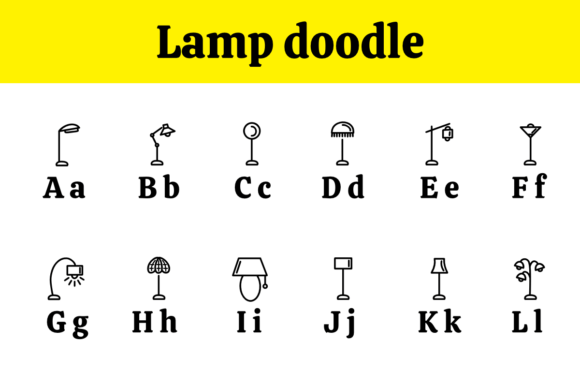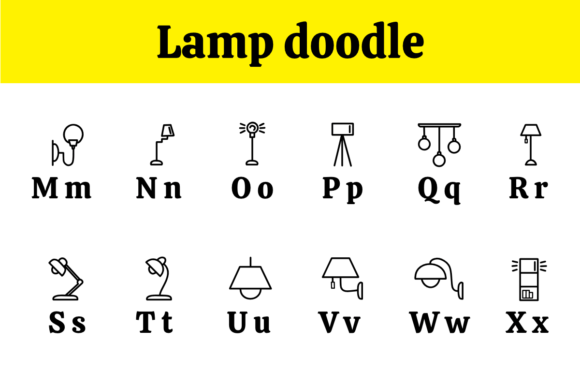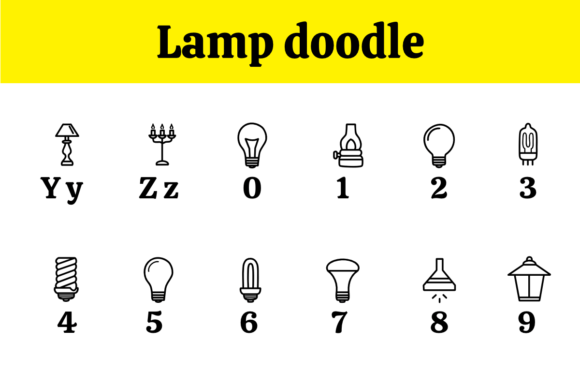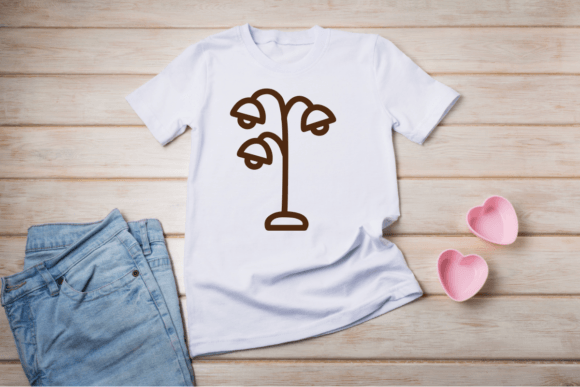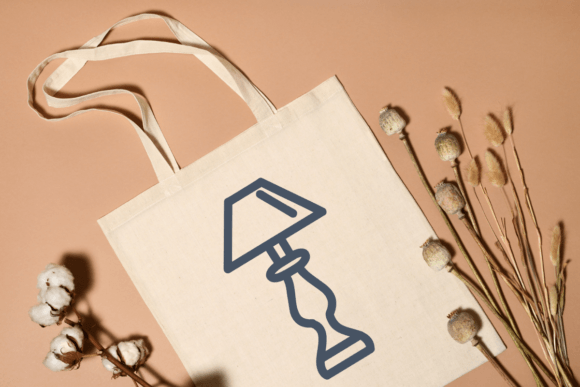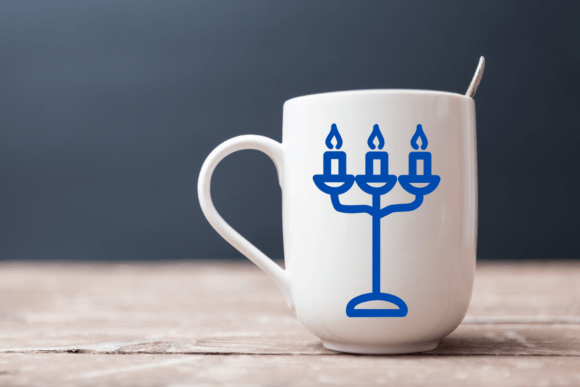
Introduction to Lamp Doodle Font Font
Fonts play a crucial role in design, and the Lamp Doodle Font font is a typeface that brings both character and versatility to any project. Whether you’re working on a branding project, a website, or a print design, the Lamp Doodle Font font offers a unique style that can elevate your work.
Lamp Doodle is a fun font full of different lamps.
Each letter looks like a cute lamp, making your text look playful and unique Itβs perfect for adding a bit of whimsy to your designs, like posters, cards, or invitations.
Key Features of Lamp Doodle Font Font
Why Choose Lamp Doodle Font Font?
The Lamp Doodle Font font is more than just a typeface β it’s a design tool that helps you communicate your message with style and clarity. Its unique character set and versatile design make it suitable for a wide range of applications, from elegant invitations to bold headlines.
With its carefully crafted letterforms and balanced proportions, the Lamp Doodle Font font ensures readability and visual appeal across all mediums.
What makes Lamp Doodle Font font special?
The Lamp Doodle Font font stands out with its unique design, exceptional readability, and versatility across various design applications.